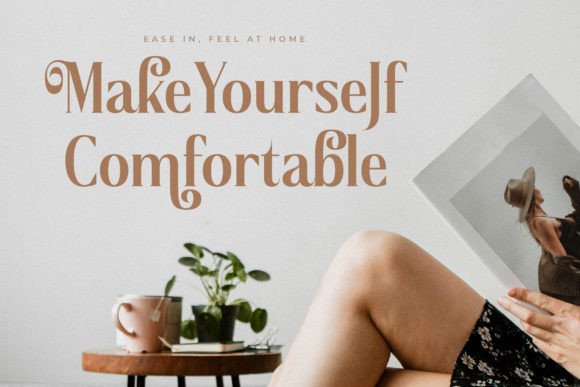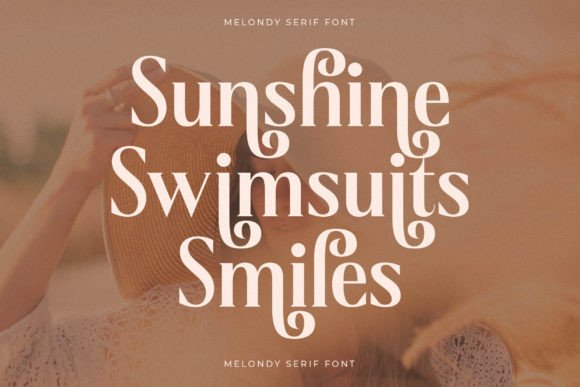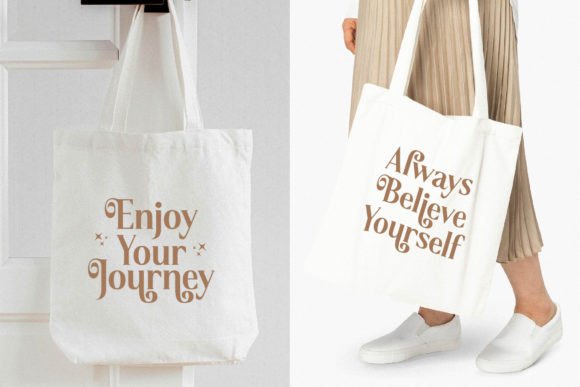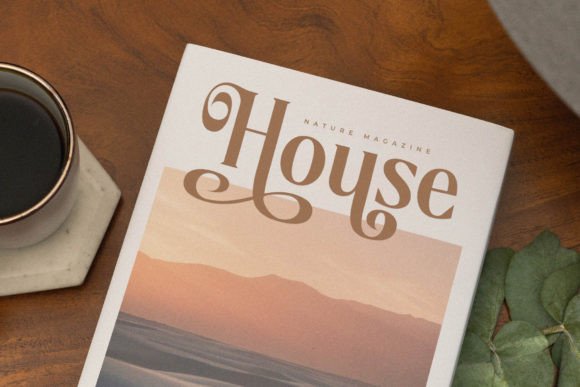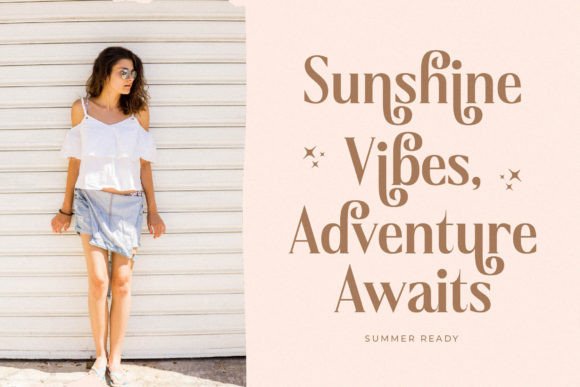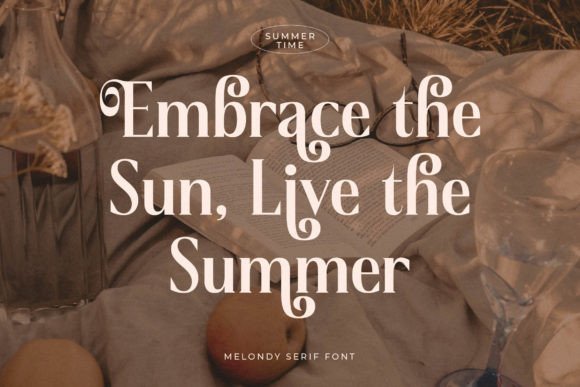
Introduction to Melondy Font
Melondy is a classic, yet modern serif typeface that has its unique style.
It is perfect for elegant and luxurious logos, book and movie title design, fashion brands, magazines, lettering, labels, and more .